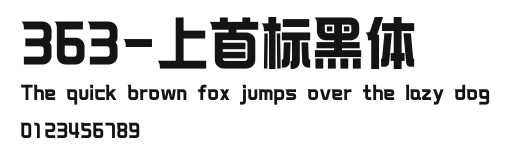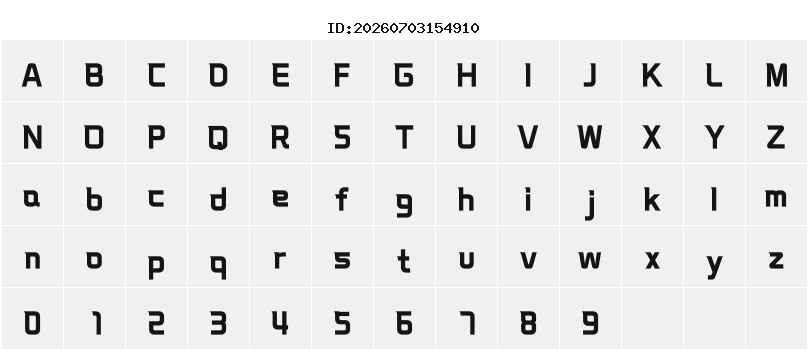
• Font Name: 363-上首标黑体
• Full Font Name: 363-上首标黑体
• Manufacturer: 上首造字
About 363-上首标黑体.ttf
363-上首标黑体.ttf is a modern, elegant sans-serif font designed for ultimate readability and visual harmony. Perfect for branding, headlines, web design, and print materials.